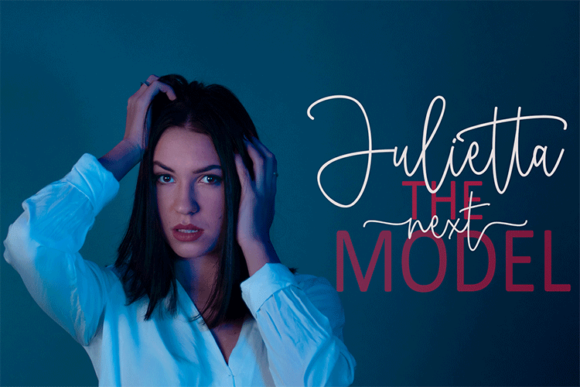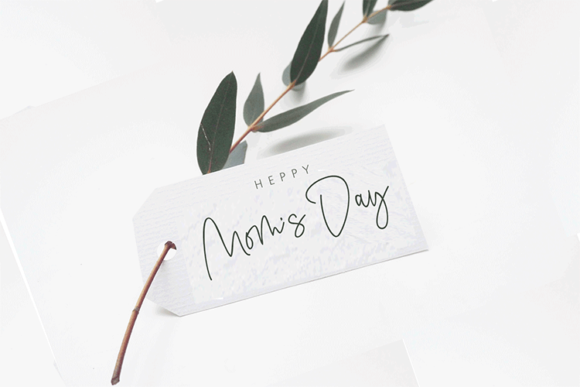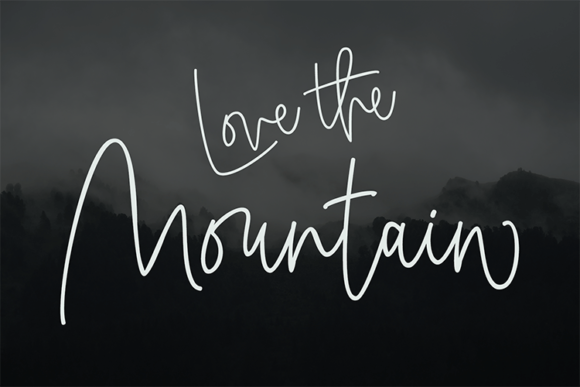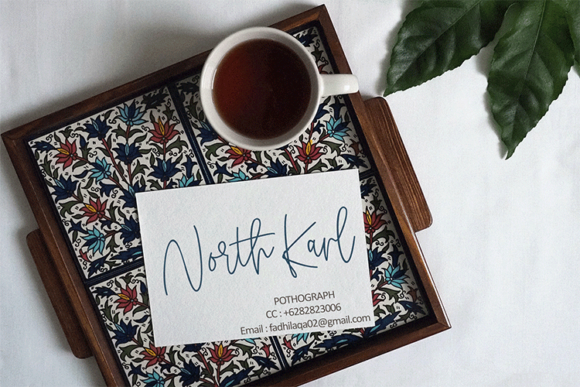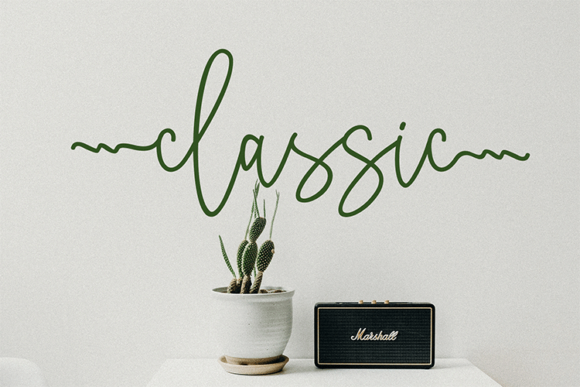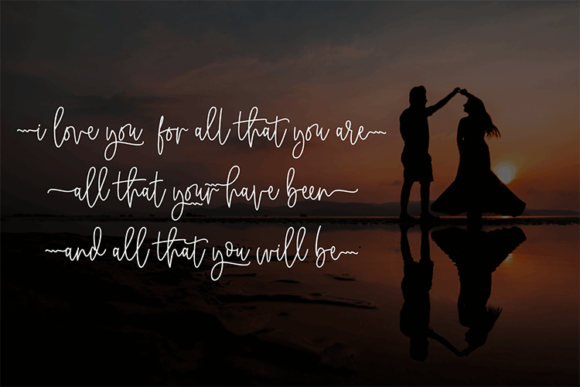
Introducing Antuok Signature Font: Elevate Your Designs with Elegance
In the world of typography, a font can make or break a design. For designers and crafters looking to add a touch of sophistication and style to their projects, the Antuok Signature Font is a game-changer. This stunning script font is not only visually appealing but also incredibly versatile, making it perfect for a wide range of design applications.
What is Antuok Signature Font?
Antuok Signature is a stylish and thin lettered script font that exudes elegance and refinement. Its delicate strokes and fluid connections make it a beautiful addition to any design. Whether you’re working on a logo, branding materials, invitations, or digital projects, this font is sure to impress.
One of the standout features of Antuok Signature Font is its PUA (Private Use Area) encoding. This means that you can access all of the glyphs and swashes with ease, giving you complete creative control over your designs. With PUA encoding, you can:
- Easily access alternative characters and ligatures
- Customize your designs with unique swashes and flourishes
- Experiment with different combinations to create truly unique designs
Key Features of Antuok Signature Font
So, what makes Antuok Signature Font so special? Here are just a few of its key features:
- Stylish and thin lettered script font: Perfect for designs that require a touch of elegance and sophistication
- PUA encoded: Easy access to glyphs and swashes for complete creative control
- Incredibly versatile: Suitable for a wide range of design applications, from logos and branding to invitations and digital projects
- Easy to use: Compatible with most design software, making it simple to incorporate into your workflow
Design Possibilities with Antuok Signature Font
The possibilities are endless with Antuok Signature Font. Here are just a few ideas to get you started:
- Logos and branding: Create a lasting impression with a custom logo that showcases your brand’s personality and style
- Invitations and stationery: Add a touch of elegance to your invitations, business cards, and letterheads
- Digital projects: Use Antuok Signature Font to create stunning social media graphics, blog headers, and more
- Crafting and DIY projects: Perfect for crafters who want to add a personal touch to their projects, from scrapbooking to card making
Why Choose Antuok Signature Font?
With so many fonts available, why choose Antuok Signature Font? Here are just a few reasons:
- Unique and stylish: Stand out from the crowd with a font that’s both elegant and sophisticated
- Versatile: Suitable for a wide range of design applications, making it a great addition to your font library
- Easy to use: Compatible with most design software, making it simple to incorporate into your workflow
- PUA encoded: Easy access to glyphs and swashes for complete creative control
In conclusion, Antuok Signature Font is a must-have for designers and crafters looking to elevate their designs with elegance and sophistication. With its stylish and thin lettered script, PUA encoding, and incredible versatility, this font is perfect for a wide range of design applications. Whether you’re working on a logo, invitation, or digital project, Antuok Signature Font is sure to impress. So why wait? Download Antuok Signature Font today and take your designs to the next level!